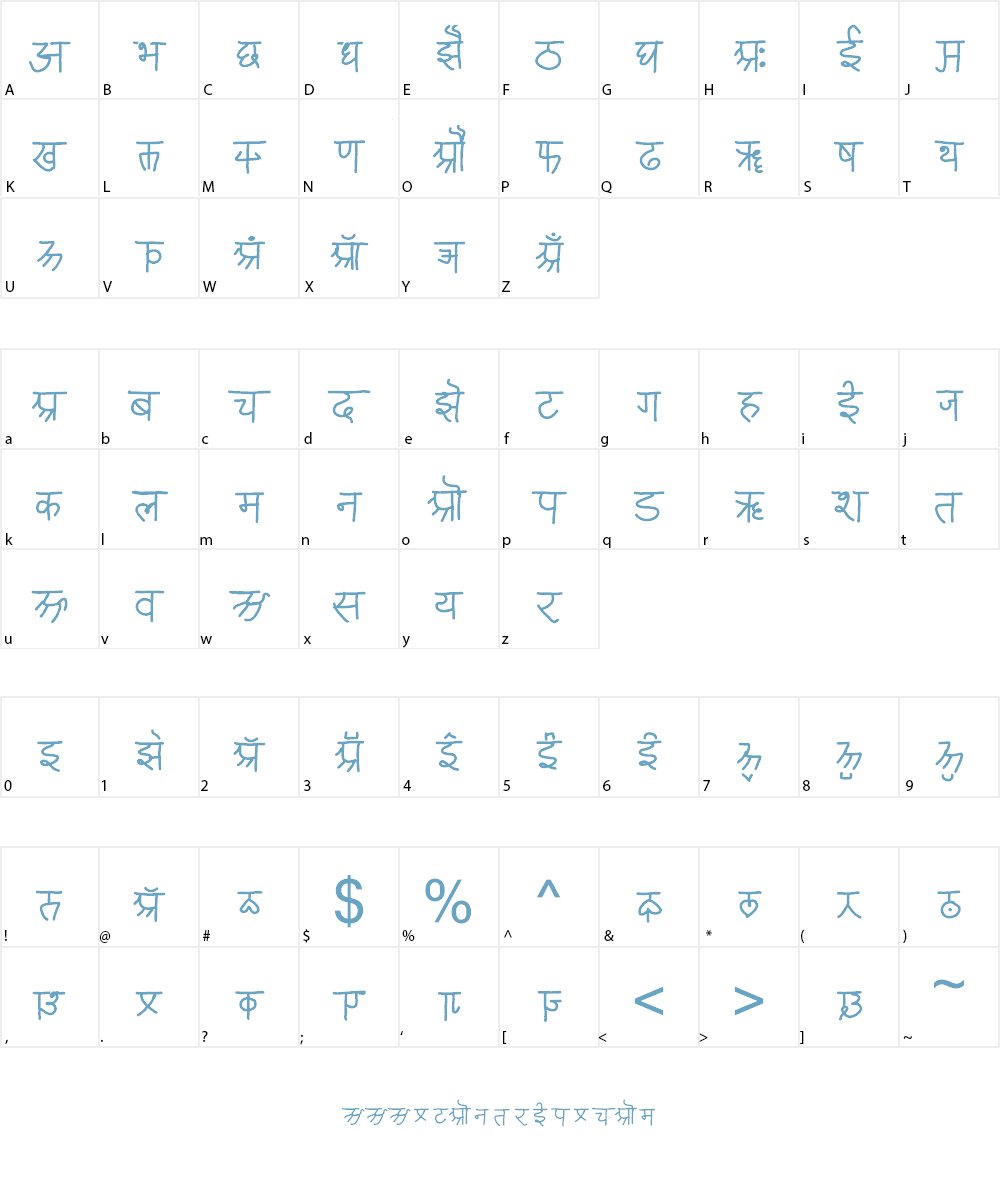
This is a script based on the phonetic combinations and similarities between the strokes and sounds have been used to create this script ..... for more information visit sanskrit_logograms ....